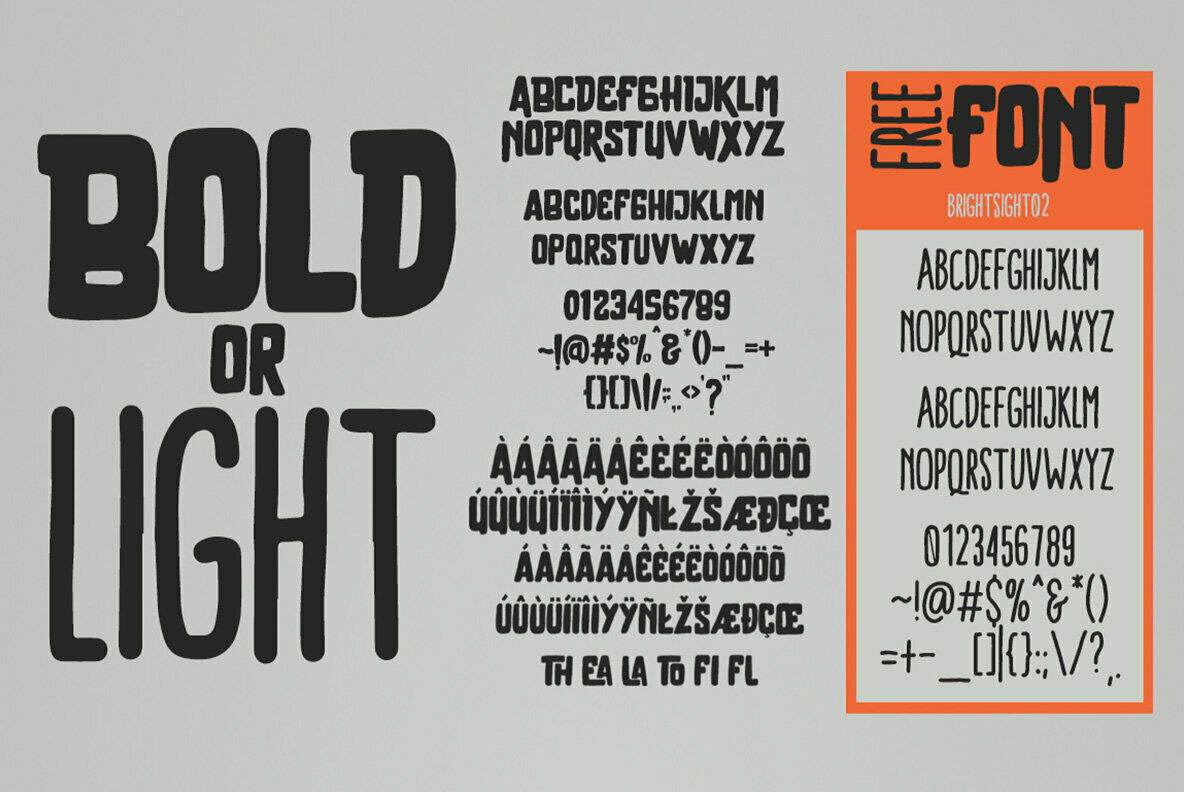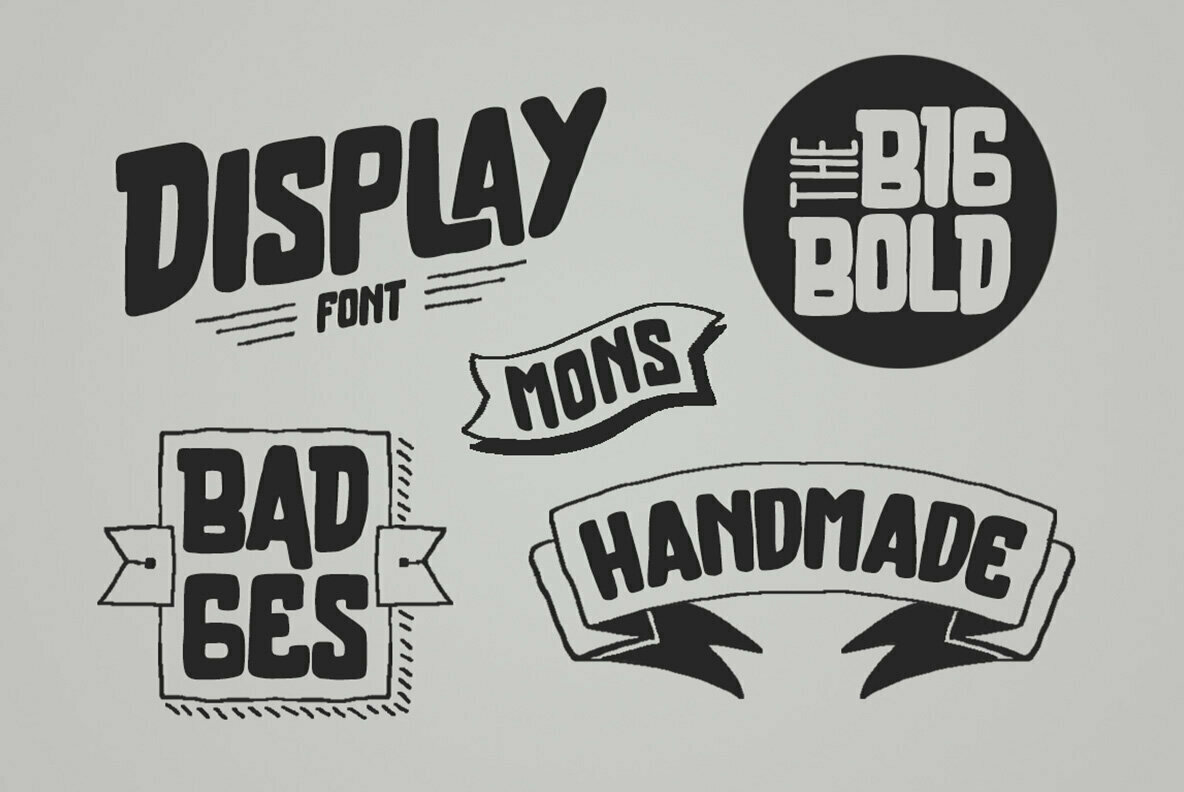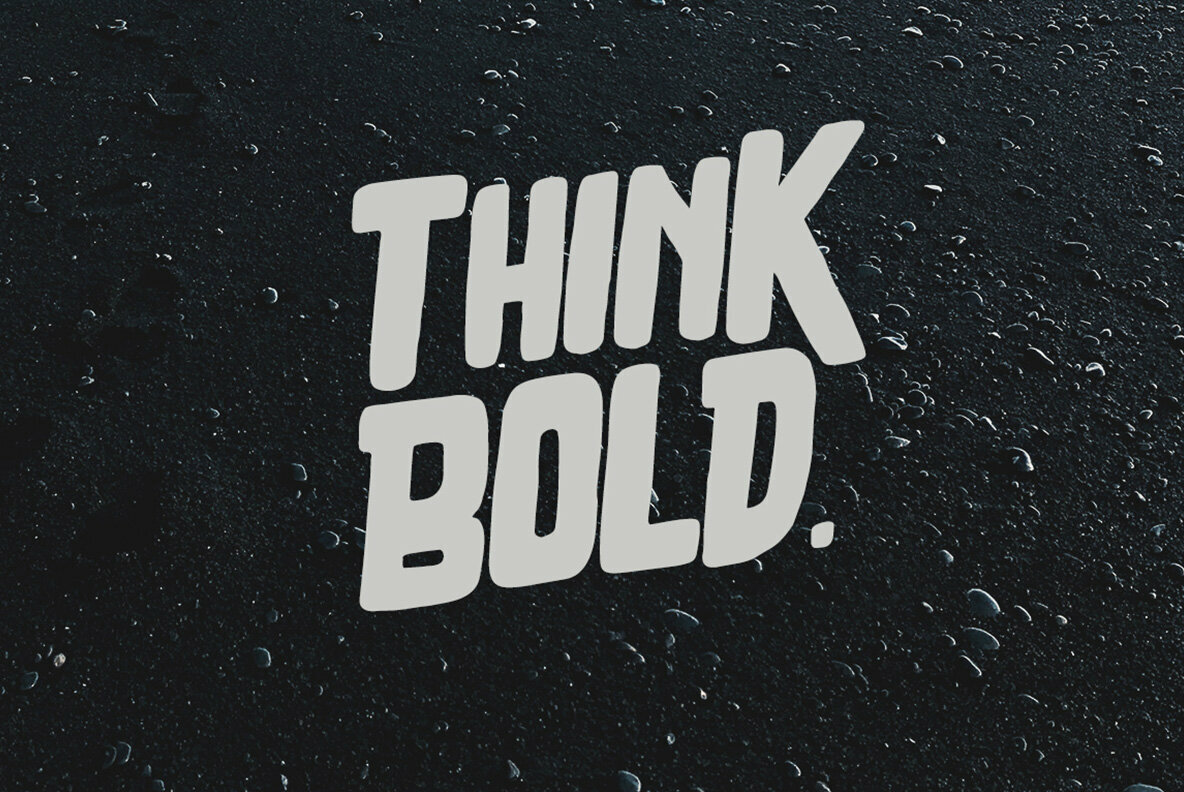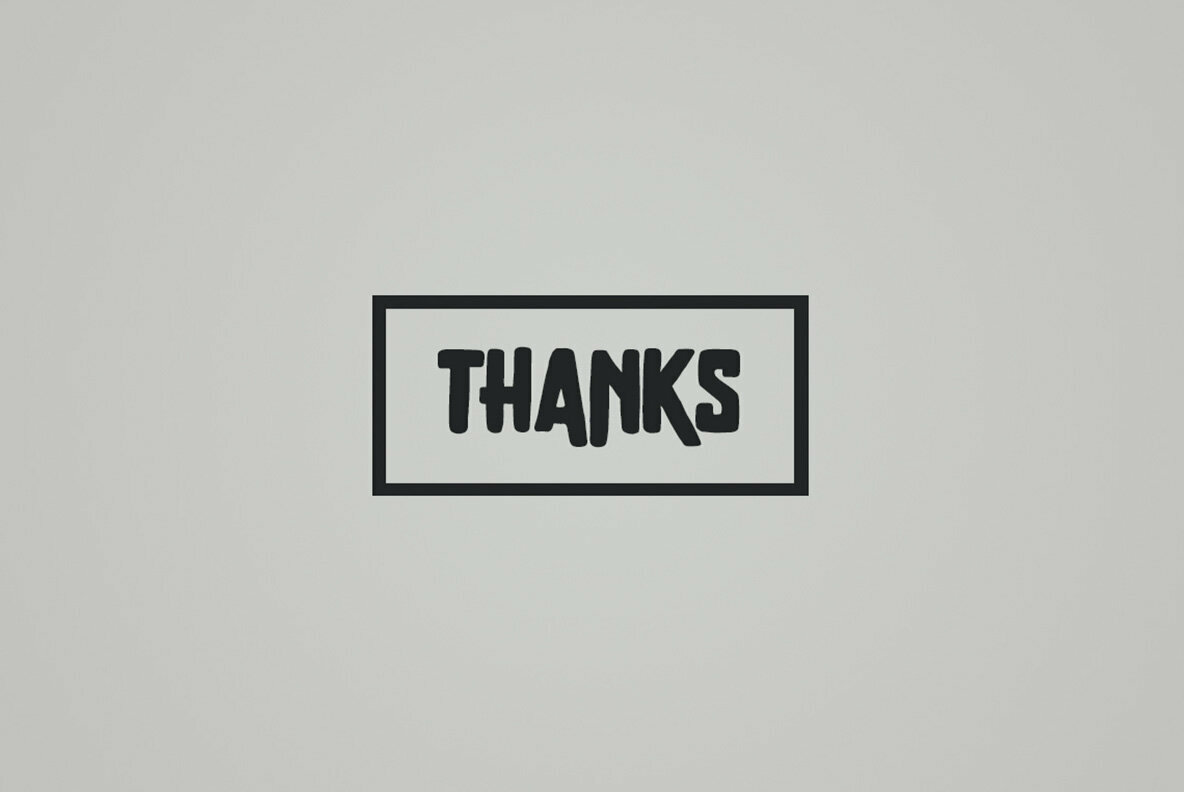
Brother Typeface: A Bold Display Font for Versatile Applications
The Brother Typeface by Giemons offers an authoritative presence that enhances your message with ease. Ideal for various display needs such as movie screens, posters, and album covers, its bold style also lends itself flawlessly to clothing labels and logos.
• Includes both uppercase and lowercase letters
• Numerals and punctuations
• Supports multiple languages
• Comes with ligatures for advanced typography